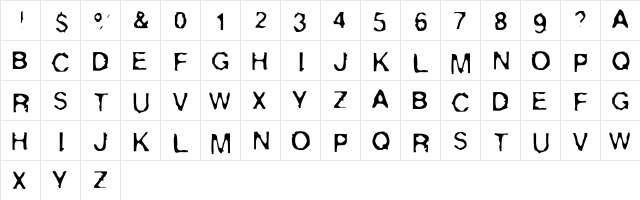
MyShoesAndSocks Regular
Design Context for MyShoesAndSocks Typeface
MyShoesAndSocks takes a measured approach to typography — its balanced proportions and neutral character make it a reliable workhorse for both digital and print work.